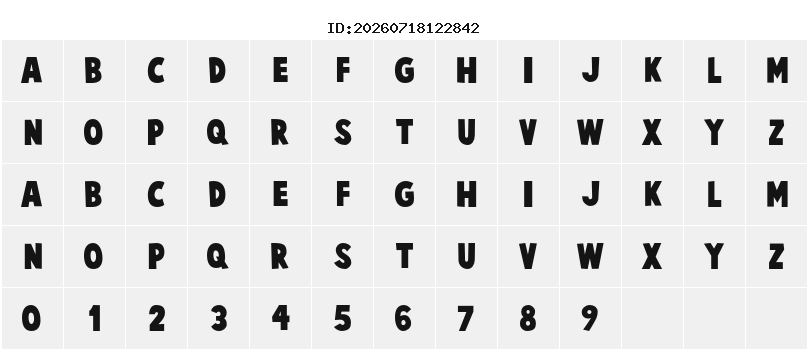
• Font Name: Cartoonist
• Font Style: Kooky
About Cartoonist.otf
Cartoonist.otf is a modern, elegant sans-serif font designed for ultimate readability and visual harmony. Perfect for branding, headlines, web design, and print materials.